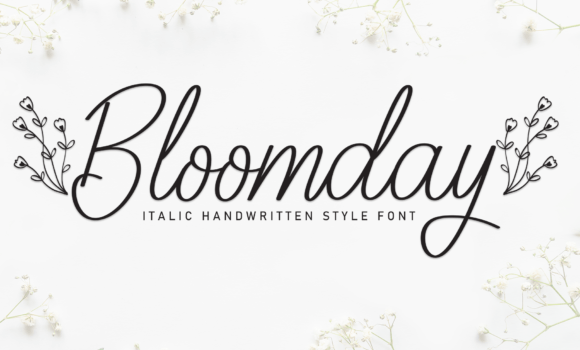
bloomday
Bloomday Font – Free Download Introduction to Bloomday Font is a whimsical and enchanting typeface that exudes a sense of joy and elegance. 📸 Preview Gallery 6 images 📌 Product Name Bloomday Font 👤 Author william jhordy 📂